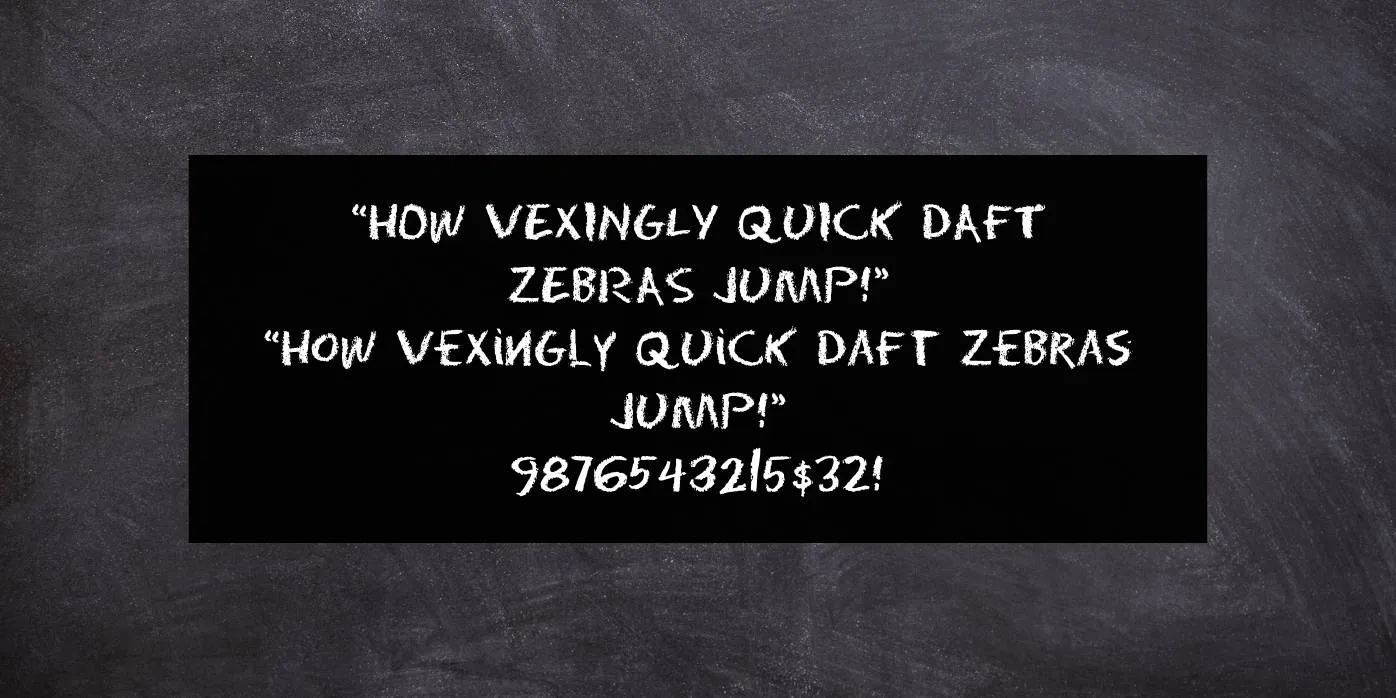
Eraser Font
Today, we are consulting on a very famous typeface known as Eraser Font. This tremendous typeface belongs to the category of script fonts. The designer of this family is David Rakowski. He has created this typeface for T-26.
This font was released in the year 1997. This script typeface has unique letterforms which give it a handwritten quality. The shapes of the letters are soft and round, making them very easy to read. Eraser Typeface is available in both regular and bold weights.